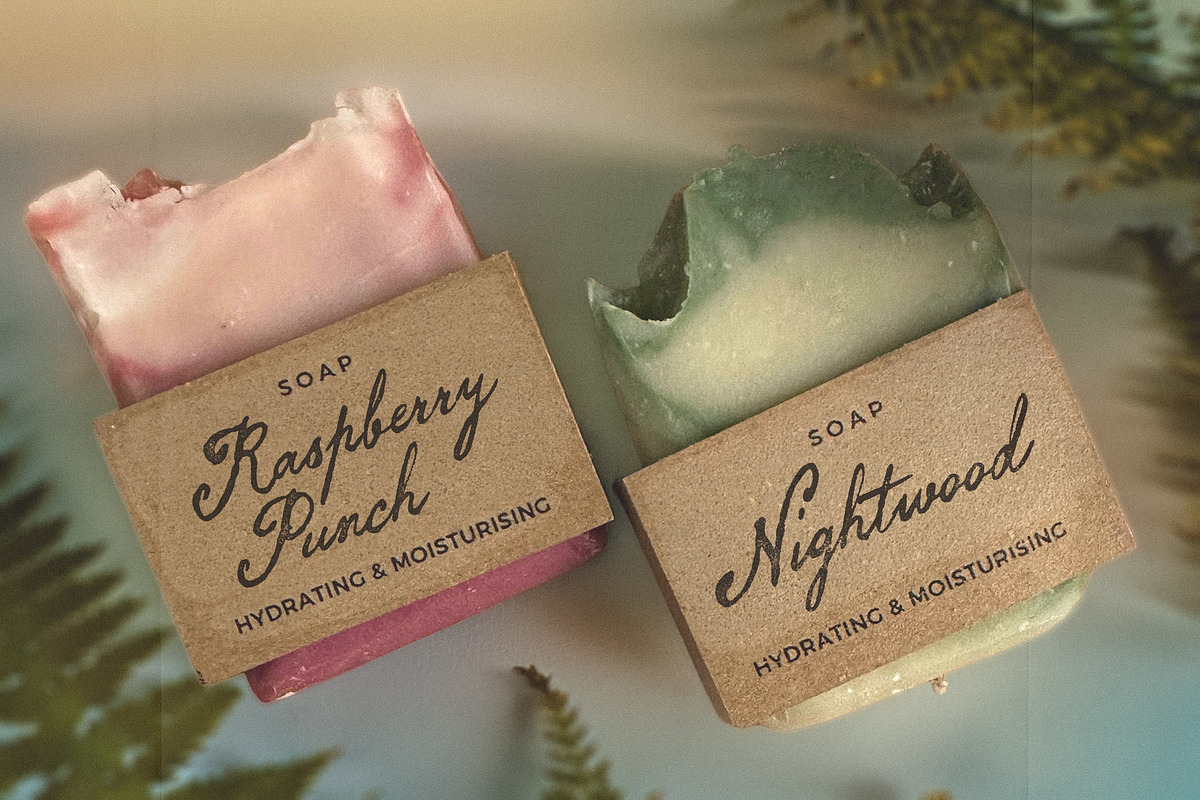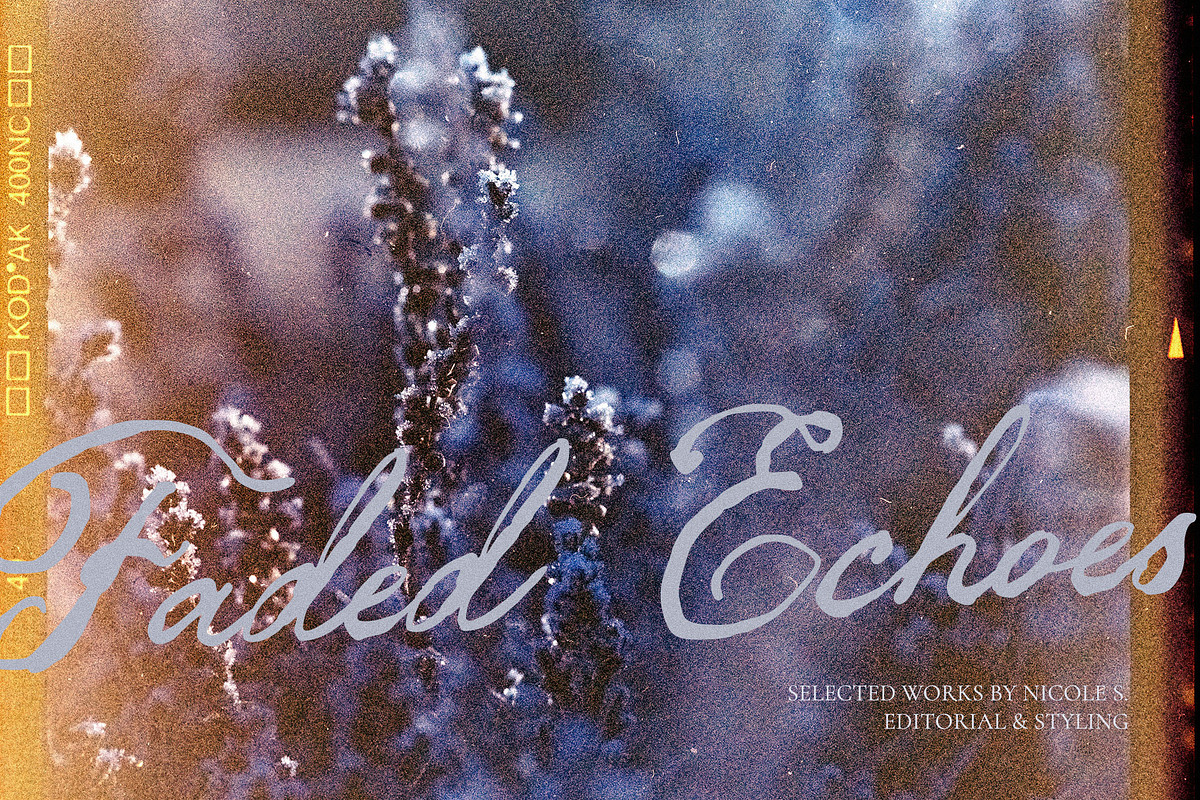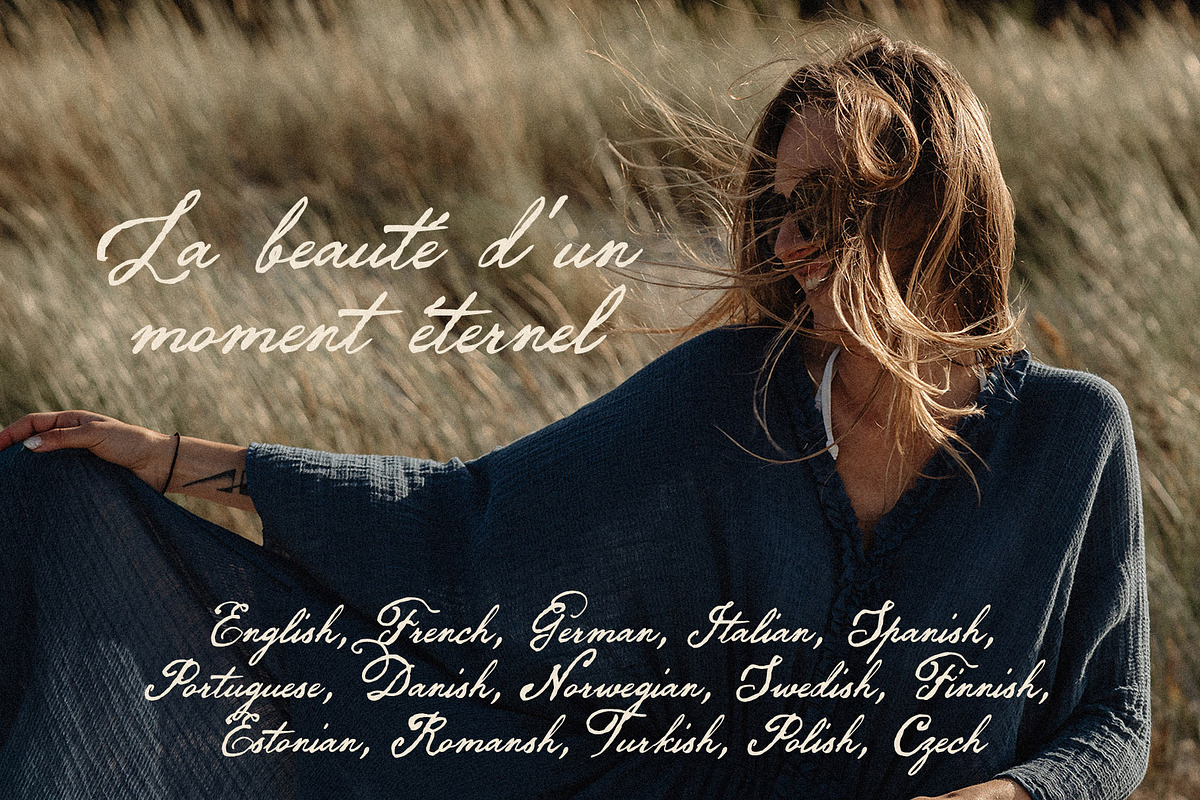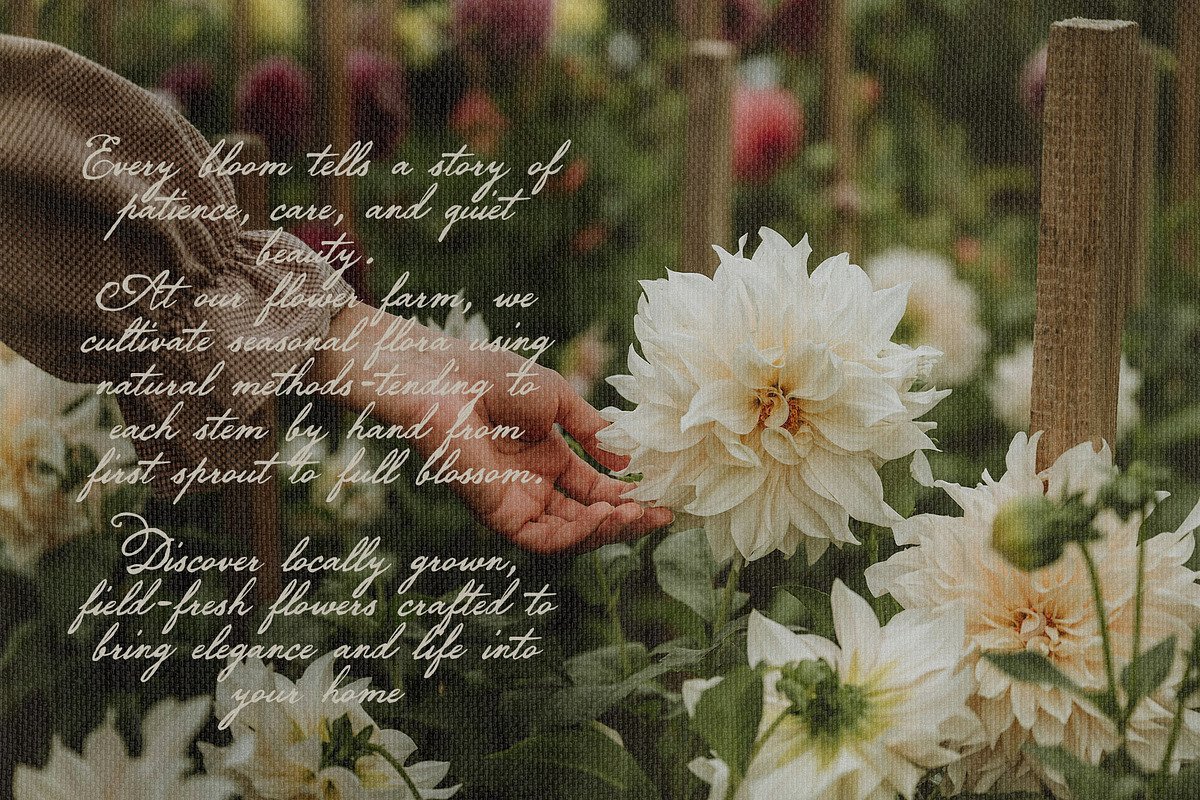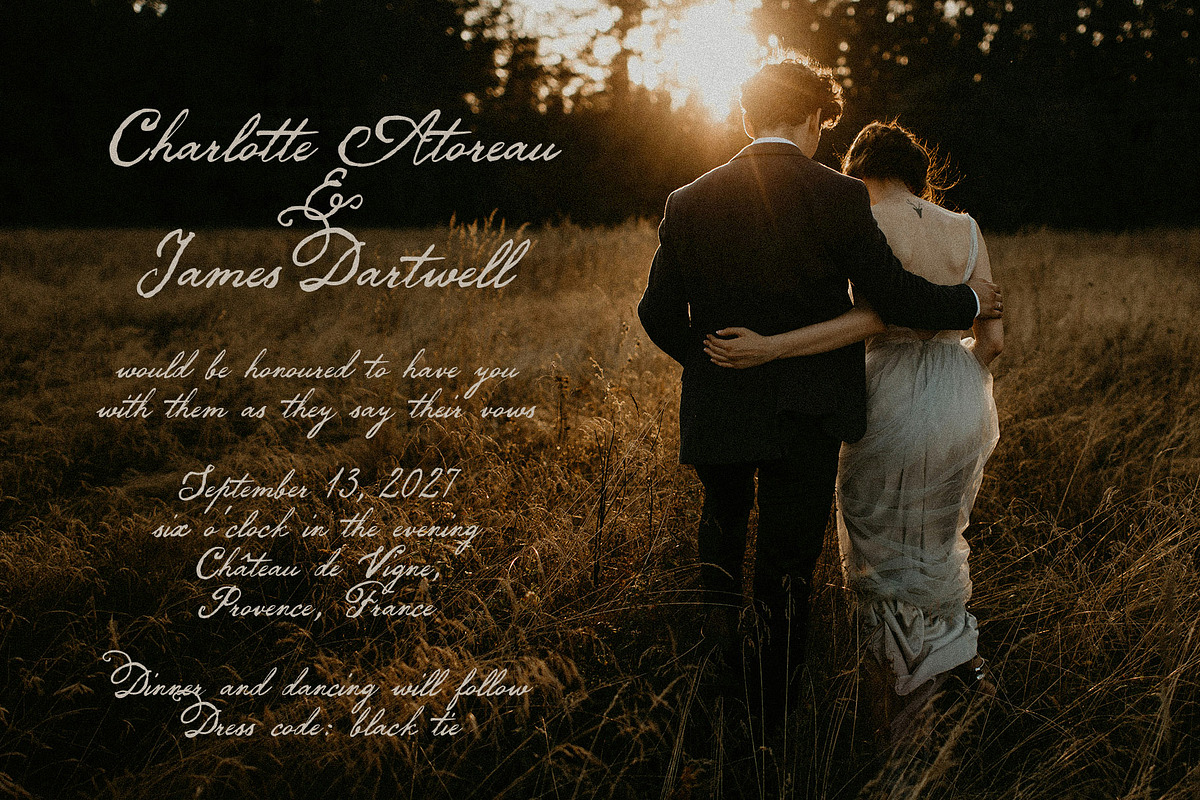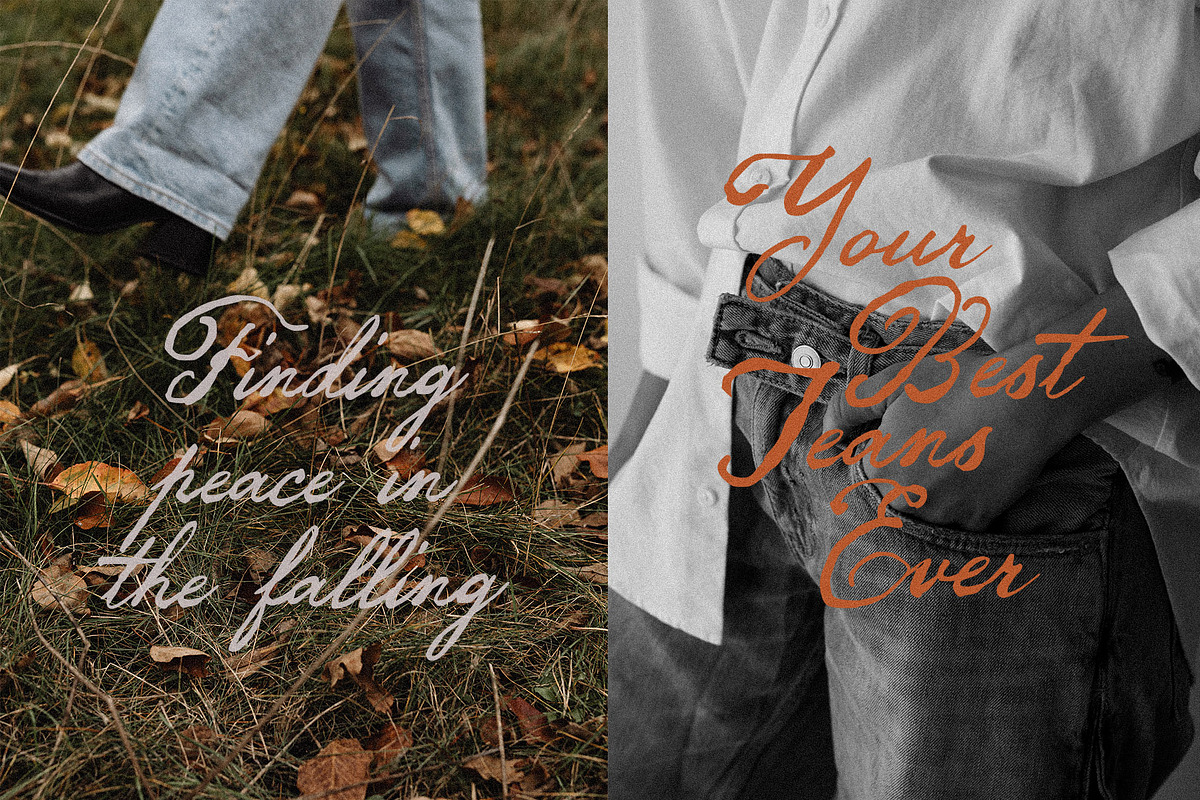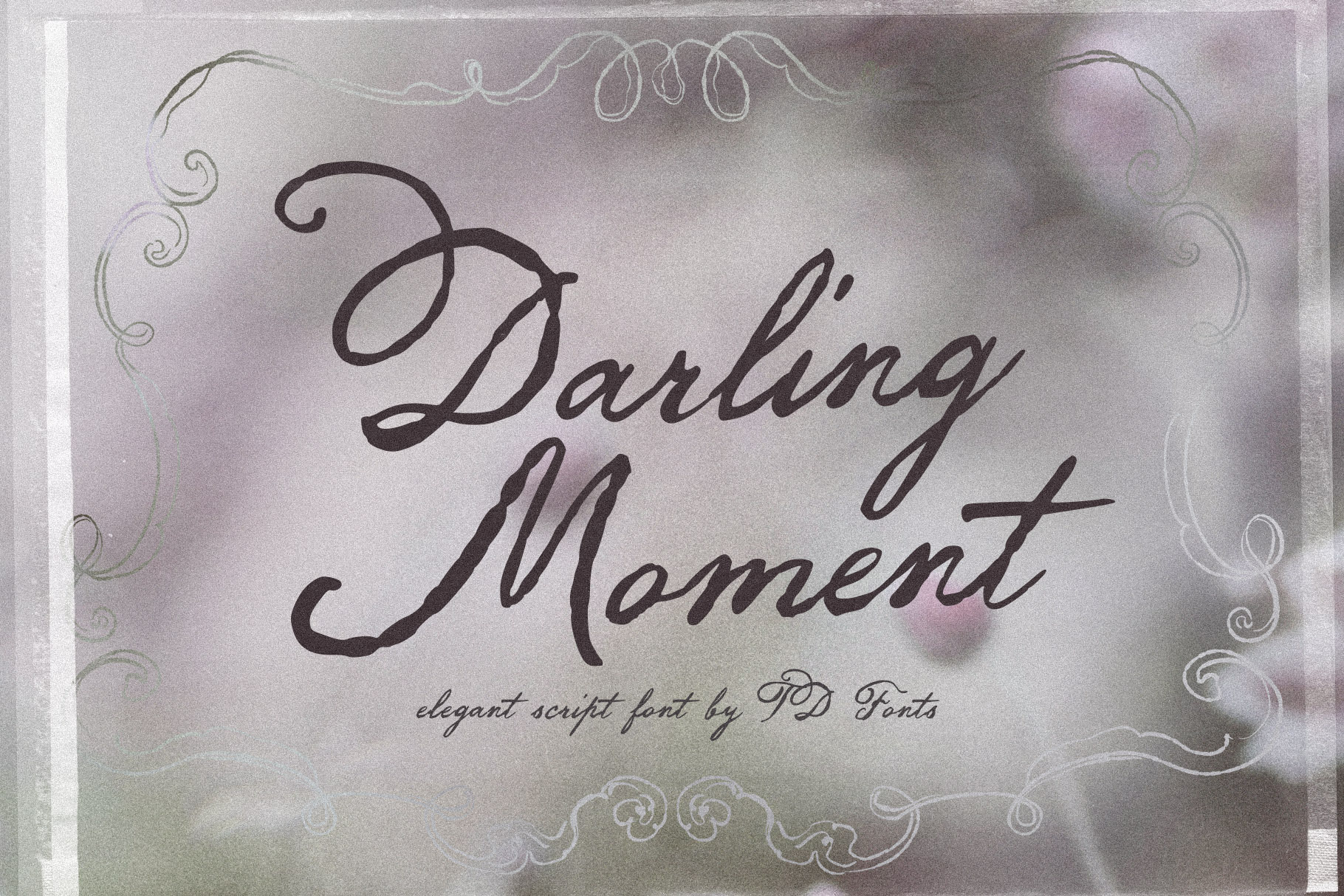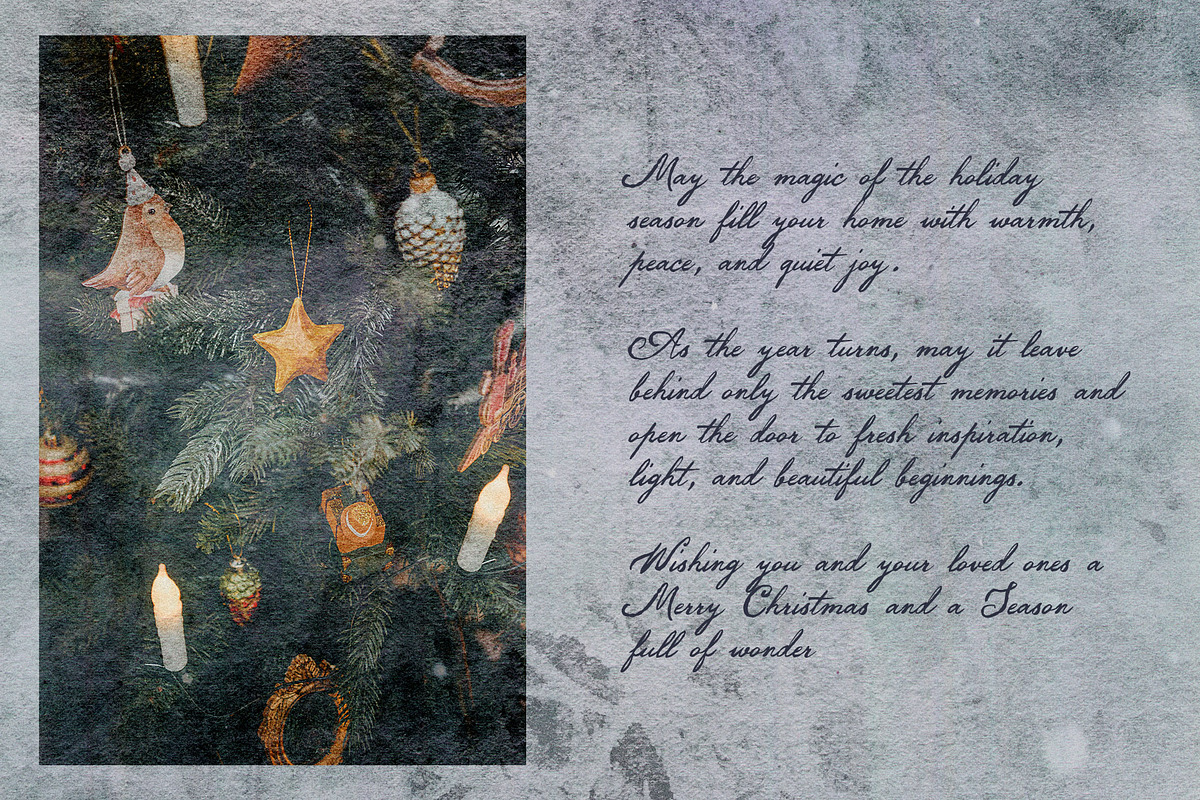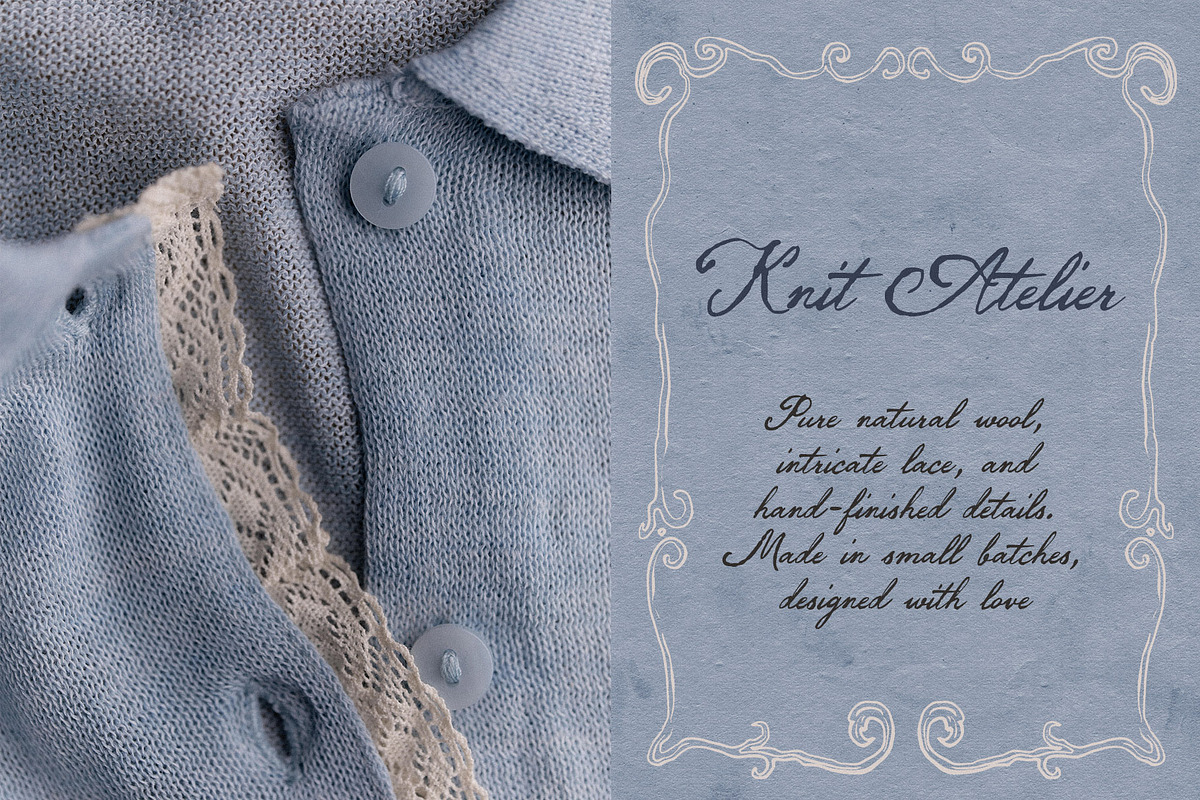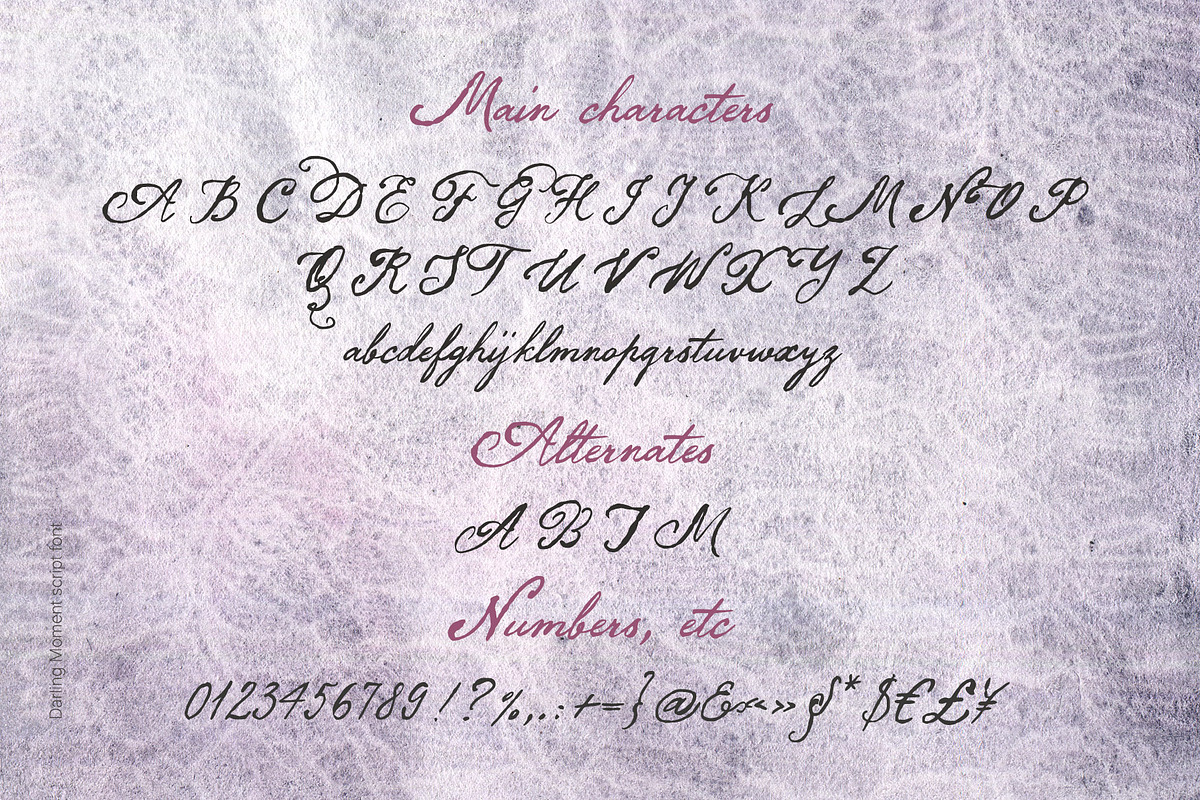
Darling Moment vintage script font
Darling Moment is an elegant handwritten script font designed to bring romance, warmth, and timeless grace to your creative projects. With its fluid letterforms, delicate swashes, and organic feel, this calligraphic typeface captures the essence of cherished memories, soft feelings, and quiet luxury.
Inspired by classical vintage calligraphy, Darling Moment has been thoughtfully reimagined for modern design. It blends traditional elegance with an expressive, tactile feel, featuring a rich ink-bleed texture that brings authentic hand-crafted soul to every word.
Unlike traditional thin calligraphy, Darling Moment is crafted with increased line thickness. This unique weight ensures exceptional legibility even at smaller sizes, making it effortlessly readable on product labels, small tags, and fine-print details.
Infused with a sweet nostalgic charm, it is the perfect choice whenever you need to emphasize a human, heartfelt touch. From holiday greeting cards and client thank-you notes to wedding stationery and boutique branding, Darling Moment creates an instant emotional connection.
Crafted with a soft, flowing rhythm, Darling Moment is ideal for wedding invitations, romantic vow books, editorial layouts, luxury branding, artisan packaging, greeting cards, and social media graphics. Whether you are designing vintage-inspired product tags or elegant quote art, this font adds an effortless touch of sophistication.
Full Set of Uppercase and Lowercase Letters with visible ink texture.
Multilingual Support:
Darling Moment includes full accent and diacritic support for 15 languages:
- English, French, German, Italian, Spanish, Portuguese, Danish, Norwegian, Swedish, Finnish, Estonian, Romansh, Turkish, Polish, Czech.
Wedding stationery, romantic invitations & vow books
Boutique branding, logotypes & feminine brand identities
Artisan product packaging, jar labels, candle & soap tags
Christmas & New Year greeting cards, seasonal holiday stationery
Client thank-you notes, heartfelt letters & personal messages
Editorial headlines, aesthetic quotes & social media graphics
Quotes on photos, print posters & nostalgic wall art
Websites, Canva templates & digital design with an authentic human touch
Font features:
Vintage-inspired calligraphic script with rich, visible ink-bleed texture
Increased stroke weight for effortless legibility, even in small sizes and on product tags
Expressive swirling capitals with open, sweeping flourishes
Stylistic alternates & swashes to add custom calligraphic variety
Full multilingual support for 15 languages with complete accent marks
The aesthetic: Darling Moment feels like a handwritten love letter found inside a vintage book, a cozy label on a hand-poured candle, or a quiet vow spoken at sunset. Inspired by classic calligraphy but reimagined with a rich ink texture and comforting weight, it brings nostalgic warmth and tactile soul to every design. It is the right font when your work needs to feel deeply personal, emotional, and timeless — not polished to clinical digital perfection, but crafted with genuine care and quiet luxury. Warm, romantic, and beautifully human.